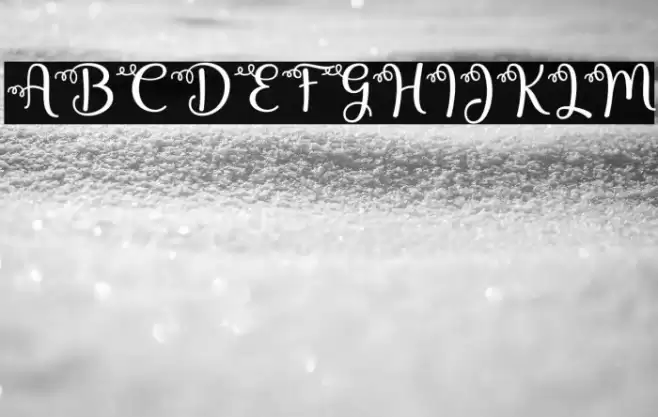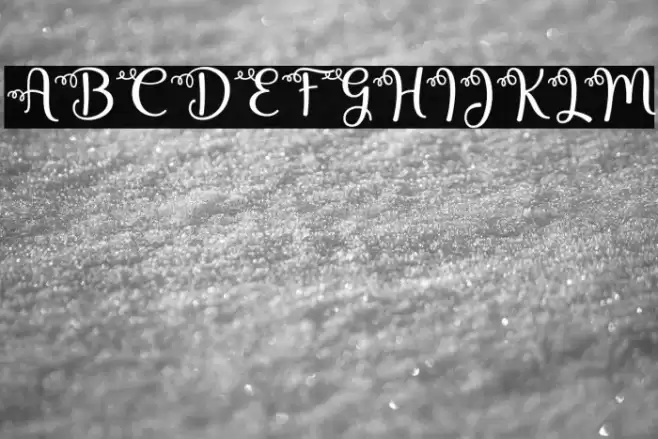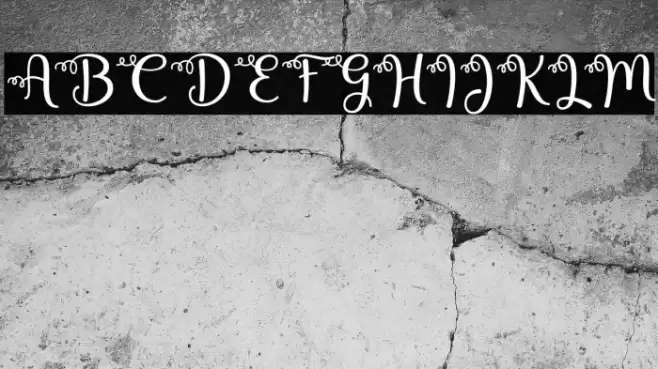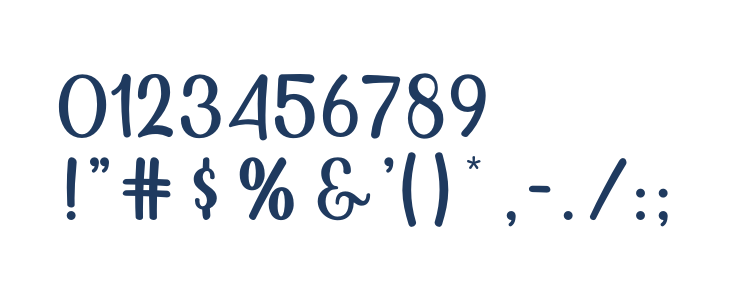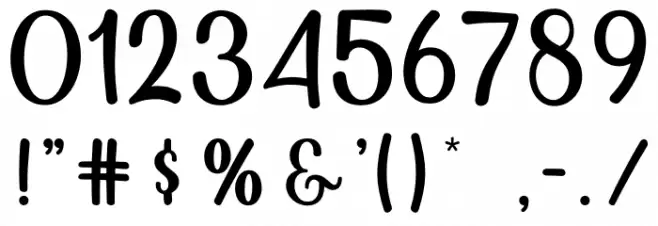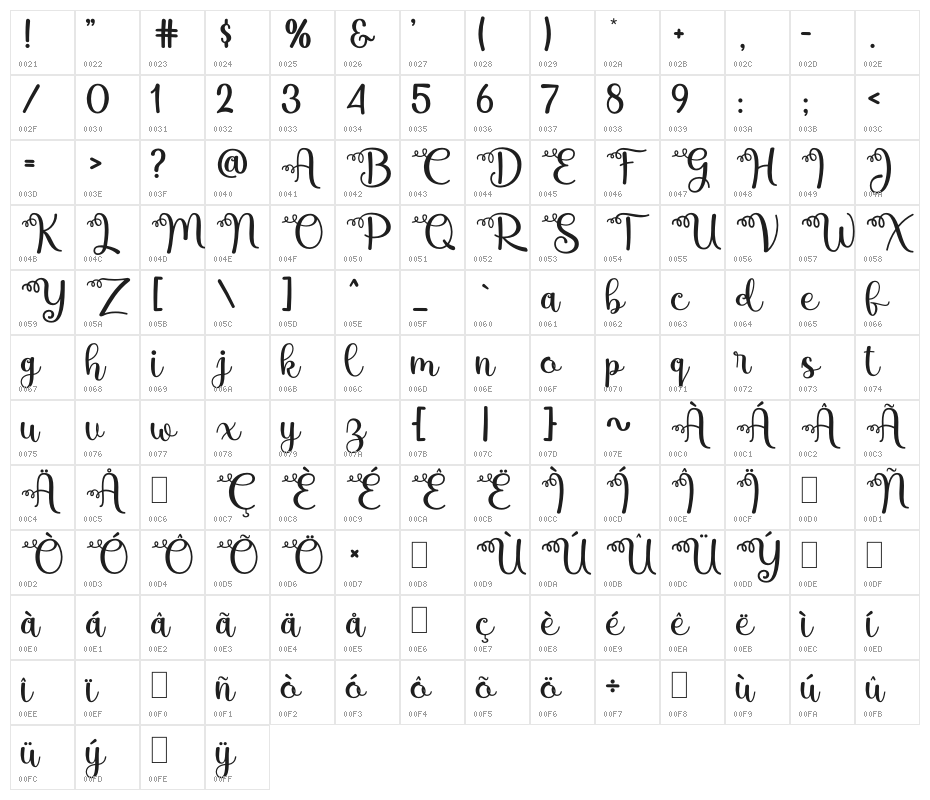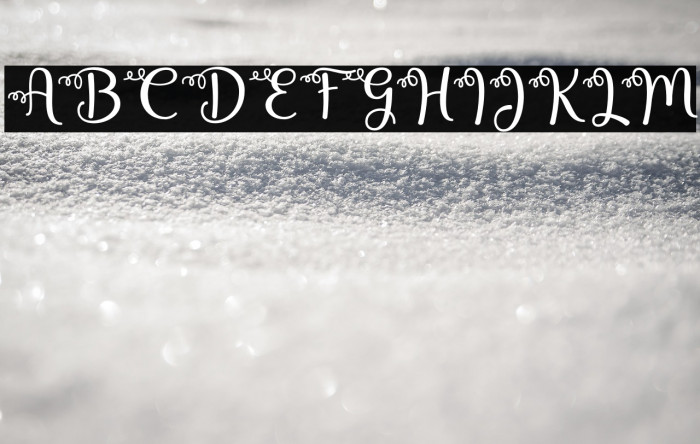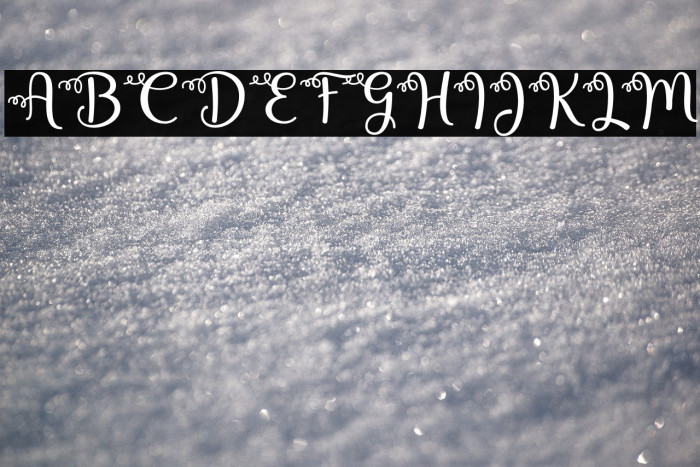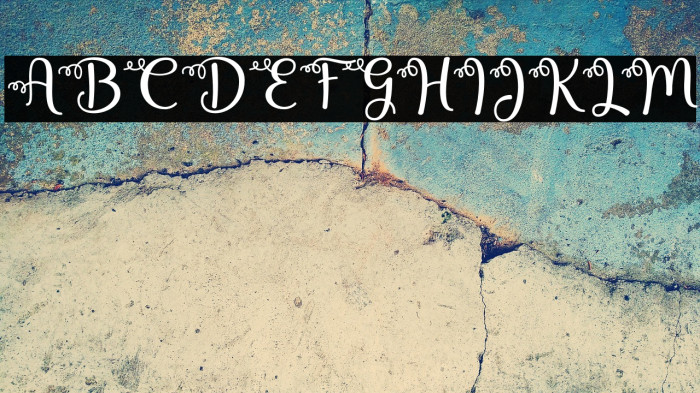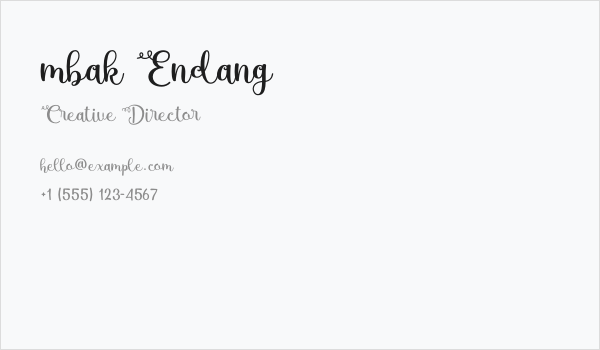
mbak Endang Font
mbak Endang Description
This font features a whimsical and playful design, characterized by its decorative elements and flowing script style. The uppercase letters are adorned with charming swirls and embellishments, giving them a unique and artistic flair. The lowercase letters maintain a smooth and continuous flow, enhancing readability while retaining a sense of elegance. The numerals are bold and rounded, complementing the overall playful aesthetic. Special characters are creatively integrated, maintaining the decorative theme. This font's distinct style makes it ideal for projects that require a touch of creativity and personality.
A whimsical, decorative script font with playful swirls and embellishments from Uncategorized fonts.
- Font: mbak Endang
- Proposed Projects: Ideal for greeting cards, invitations, branding, and creative projects that require a playful and artistic touch.
- Use Case: Headlines, Logos, Invitations